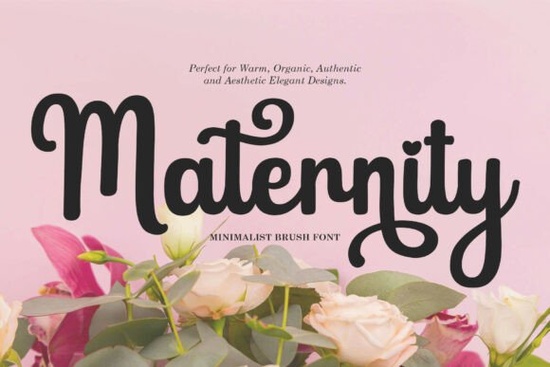
Finding the right handwritten typeface can be tricky. You want something that looks authentically human without feeling messy or hard to read. The Maternity Font solves this by offering a minimalist, handprinted brush style made from real paint strokes. It gives your text a raw, organic texture that feels genuinely handmade, making it a reliable choice for crafters, small business owners, and print-on-demand sellers who need a casual charm for their projects.
What makes a brush font look authentically handmade?
Many digital scripts try to mimic handwriting but end up looking too perfect or rigid. A truly authentic brush typeface relies on uneven baselines, natural ink bleeds, and varied stroke weights. Because this typeface was created using actual paint, the edges have a subtle roughness that digital smoothing often destroys. If you are looking for a more relaxed, everyday handwriting style, you might also explore casual script collections featuring Quarantine and Chill, which shares that effortless, unpolished vibe. The main goal is to make your audience feel like a real person wrote the message just for them.
How do you use minimalist scripts for wedding and lifestyle branding?
Minimalist handwritten typefaces shine when they are given room to breathe. For cozy wedding stationery, pair this font with a clean, lightweight sans-serif for the body text. Let the brush script handle the names, dates, and short quotes. When designing indie packaging or rustic lifestyle labels, the organic look adds a personal touch that mass-produced brands usually lack.
If you want to contrast this raw texture with something a bit more elegant for your invitations, a delicate option like elegant calligraphy styles such as White Crystal Script can provide a beautiful visual balance. For everyday quote graphics on social media or tote bags, keeping the layout simple ensures the casual charm remains the focal point. You can also check out structured script options like Madina if you need a slightly more formal look for your lifestyle brand.
What are the best pairings for a casual brush typeface?
Pairing a highly textured brush font requires a careful balance. You want to avoid clashing textures. Since this typeface has a lot of raw character, pair it with a very simple, geometric sans-serif or a classic serif. Avoid pairing it with another heavy brush script, as the design will become visually overwhelming. If your project requires a softer, more floral aesthetic alongside your casual text, incorporating a botanical-inspired typeface like Blossom Script for small accents can work beautifully without stealing the spotlight. Always test your pairings at the actual size you plan to print or publish.
- Test the font at your final print size to ensure the raw paint textures remain legible and do not blur.
- Pair it with a clean, simple sans-serif to let the handmade details stand out clearly.
- Increase the letter spacing slightly if you are using it in all-caps for a logo or header.